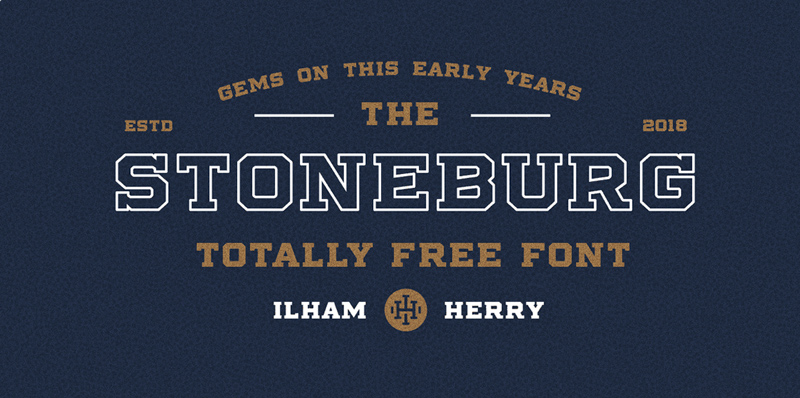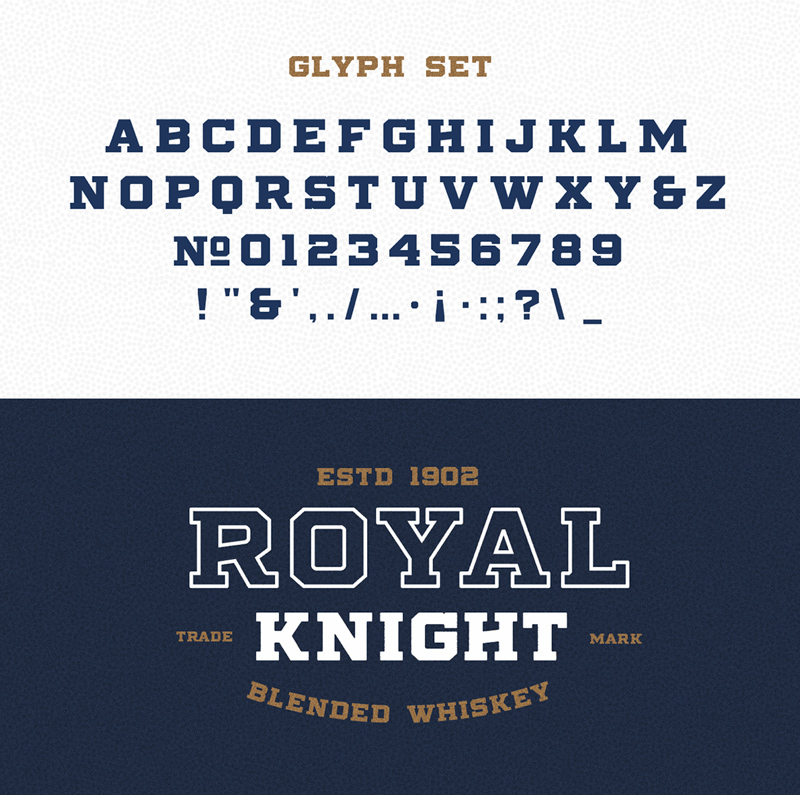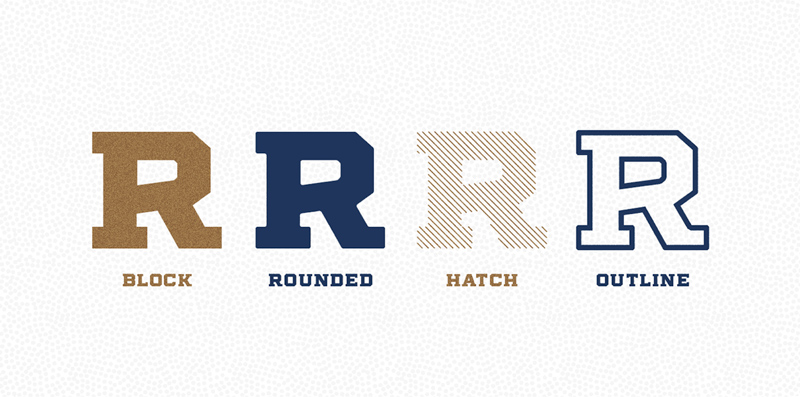
Stoneburg Font
This Stoneburg font can be used in a lot of different types of projects thanks to the 4 styles that were released by Ilham Herry. So big thanks to the author for sharing this resource with the community.
Stoneburg font comes with 4 style, block, rounded, outline, and hatch so you can mix and match as you want.